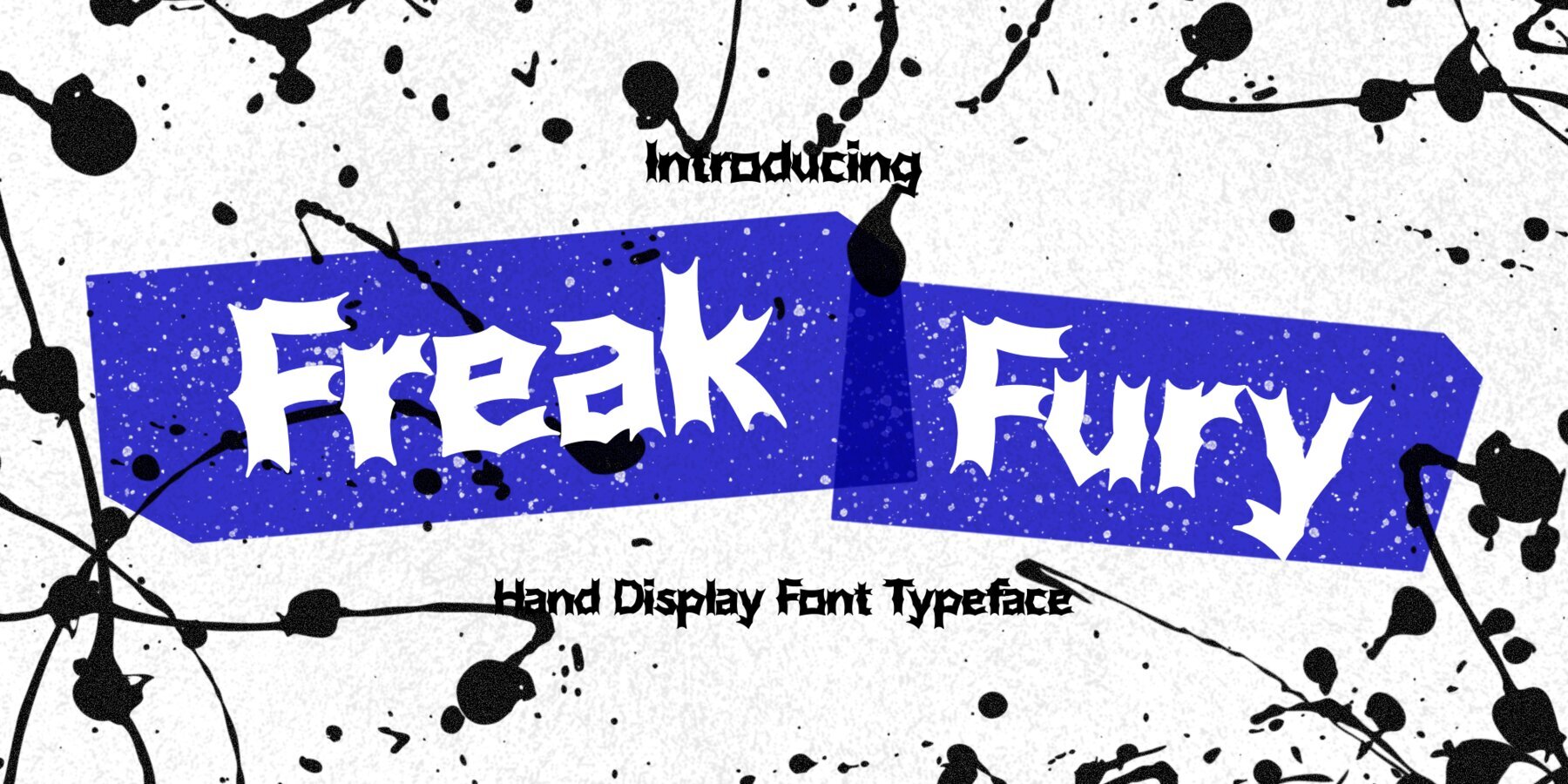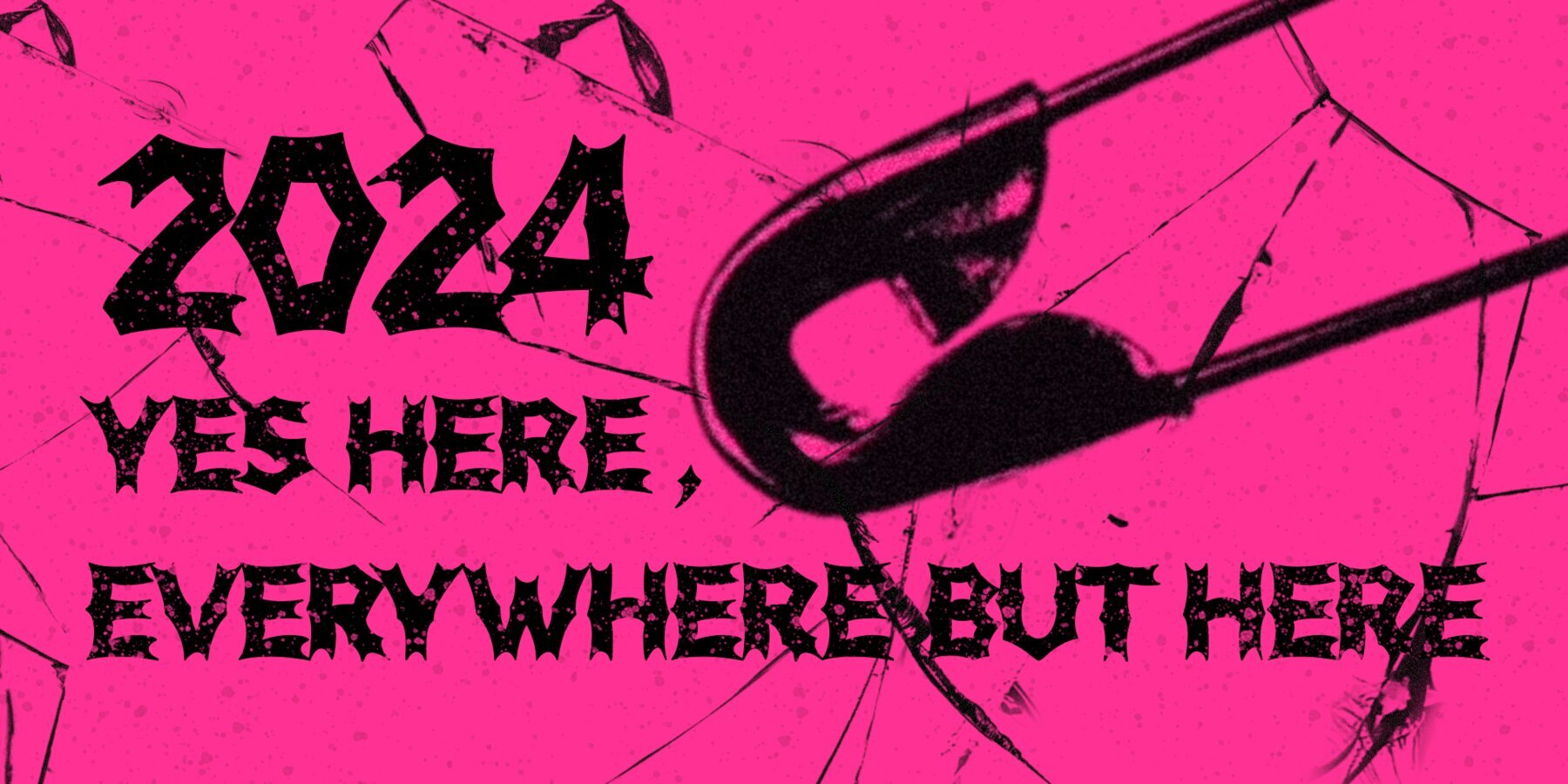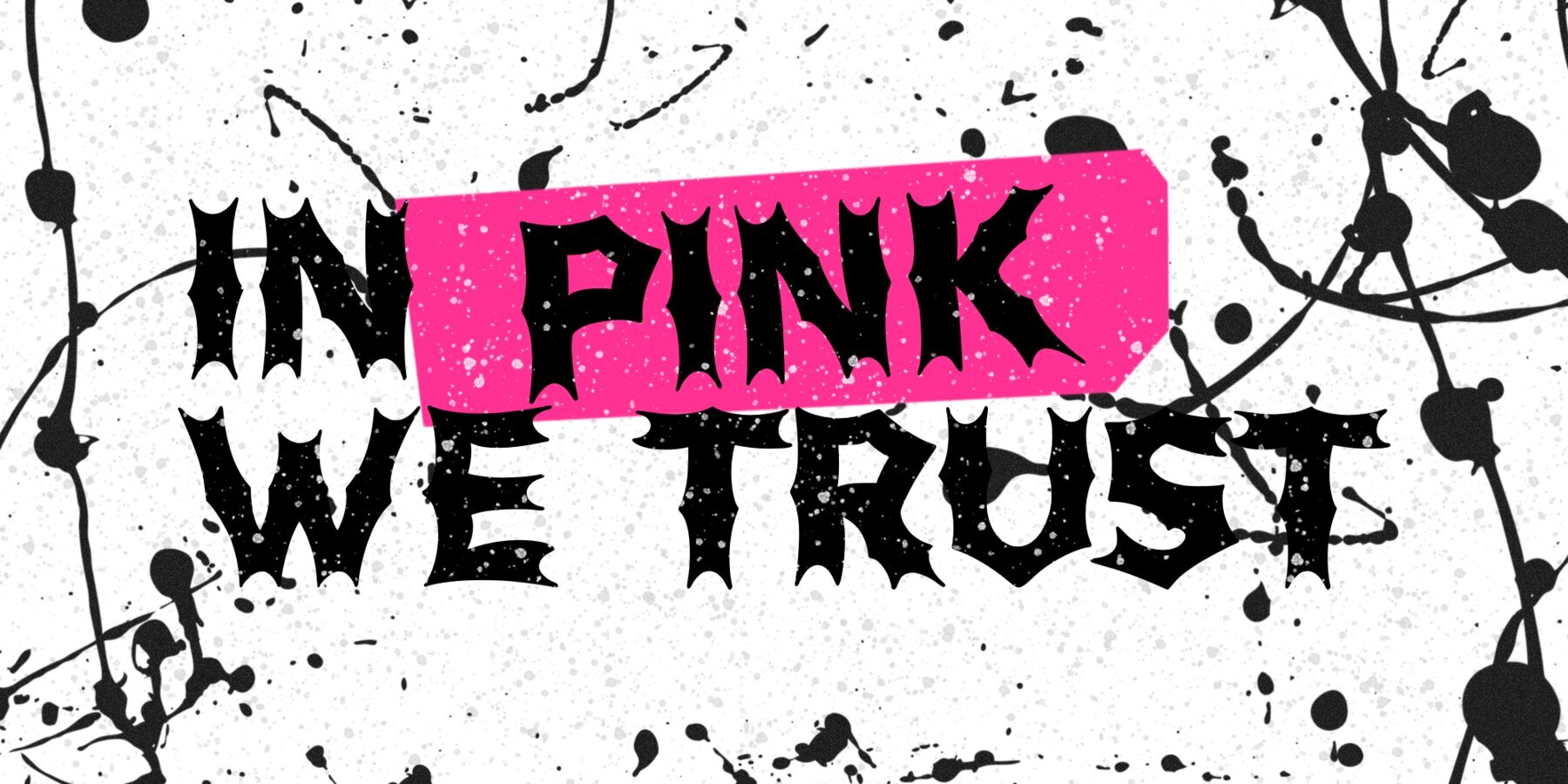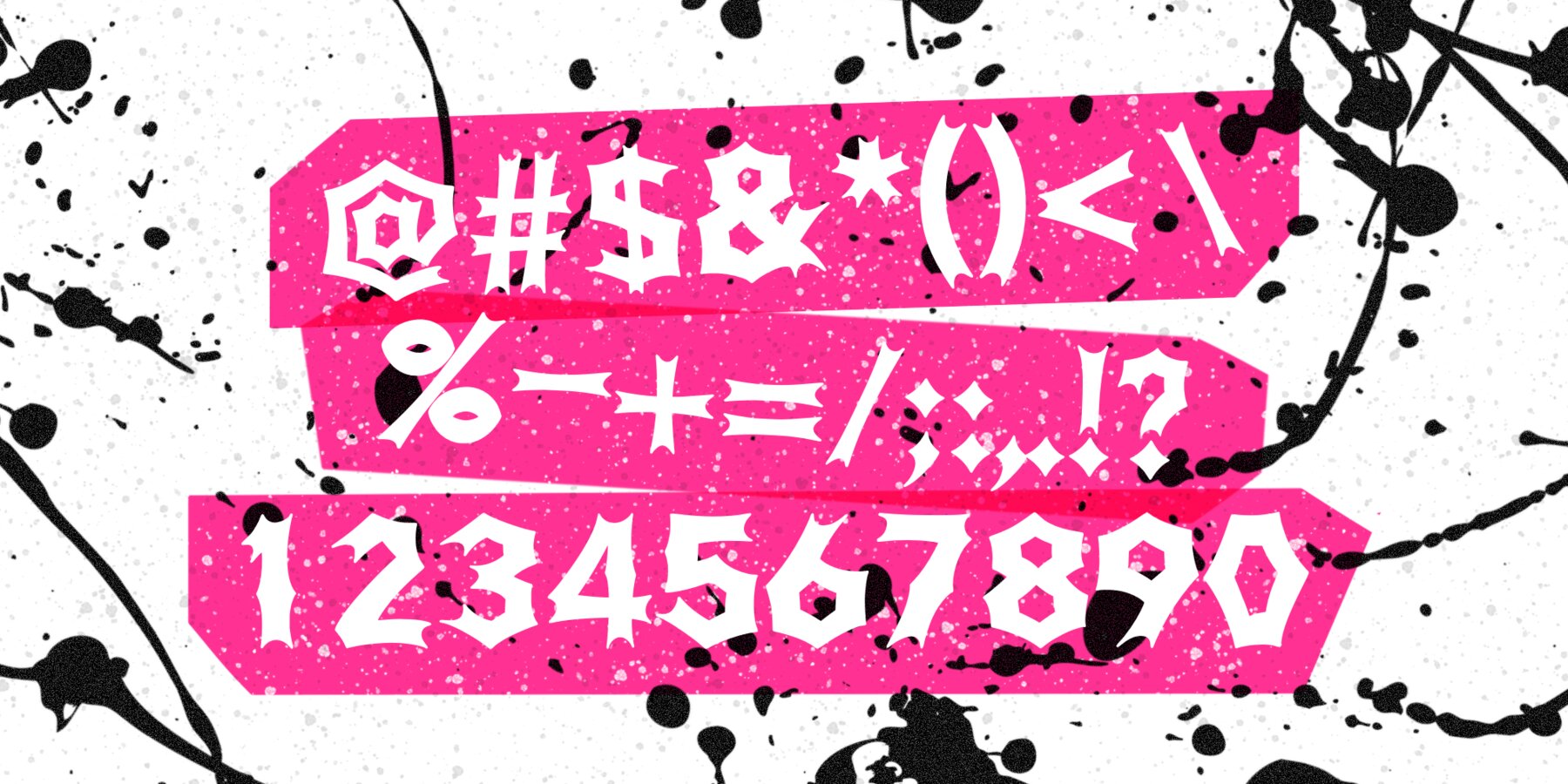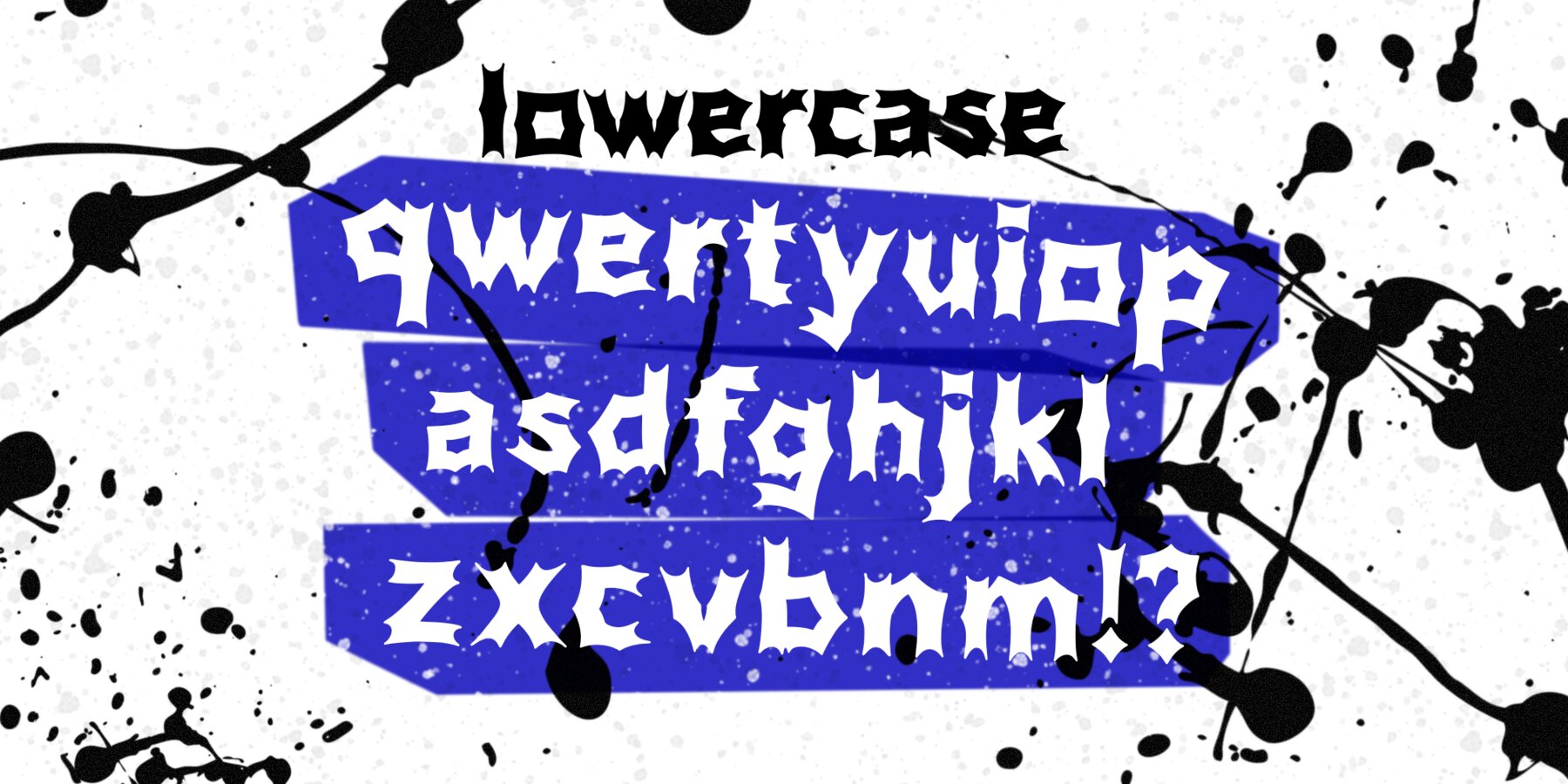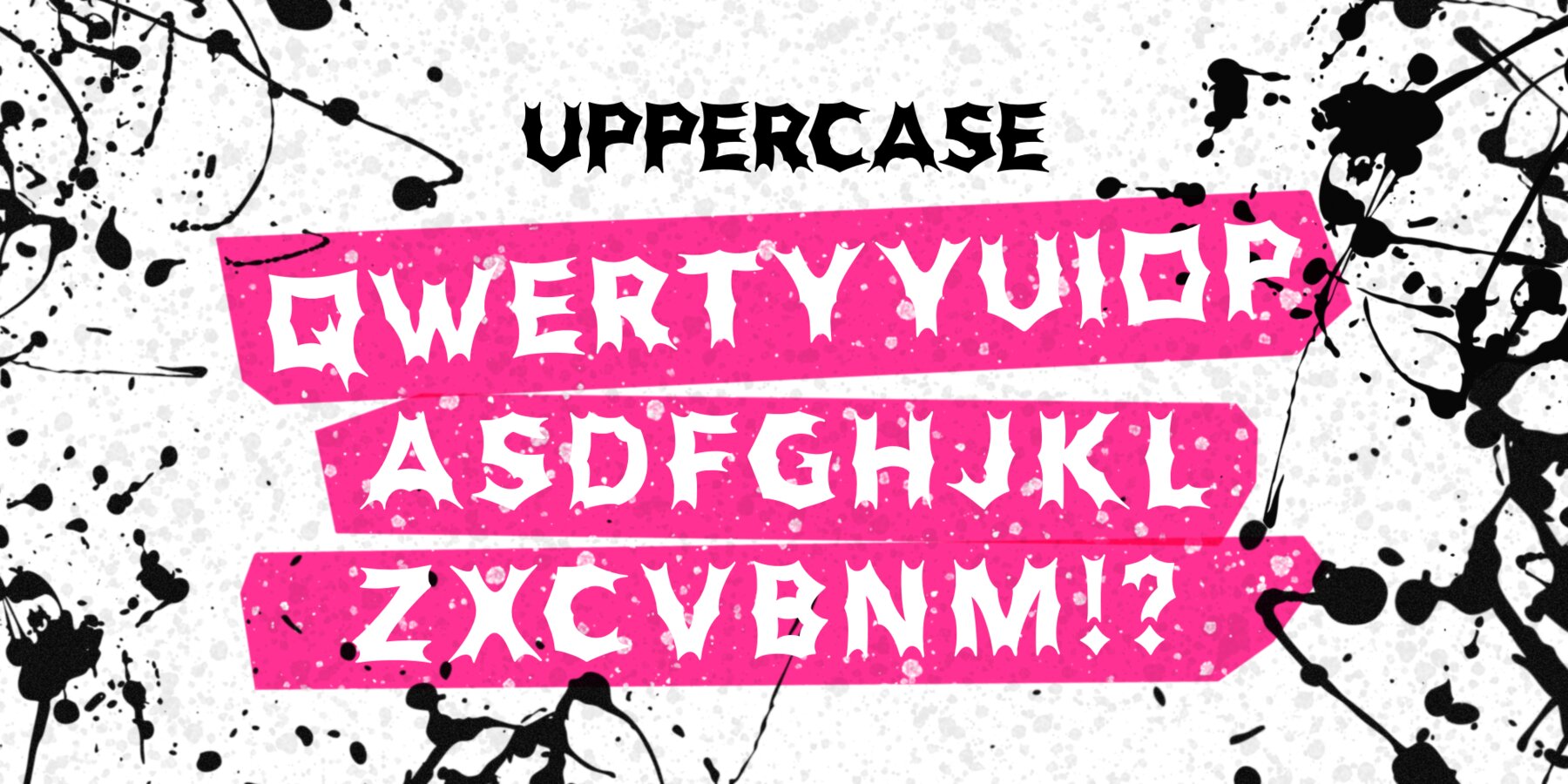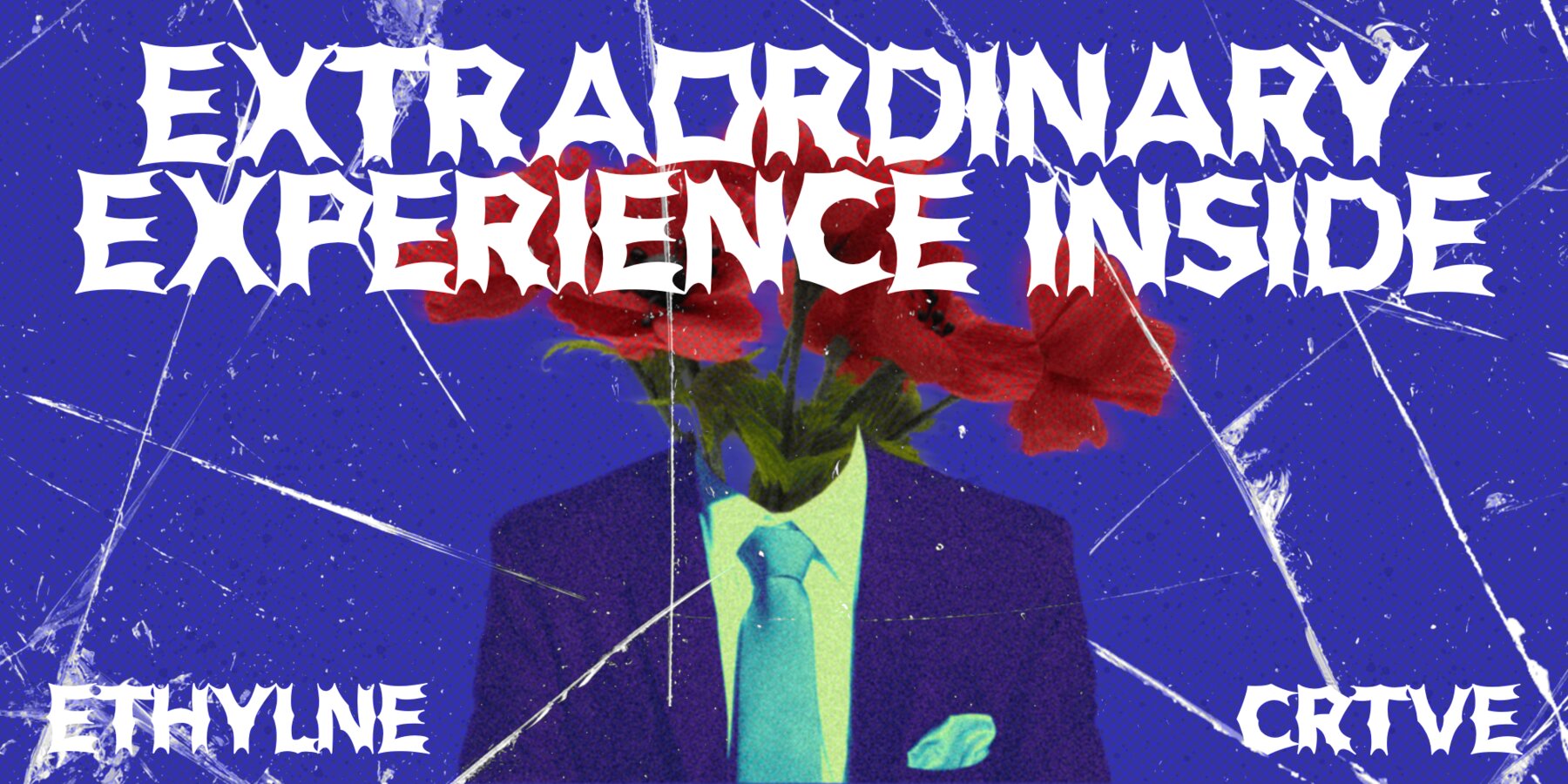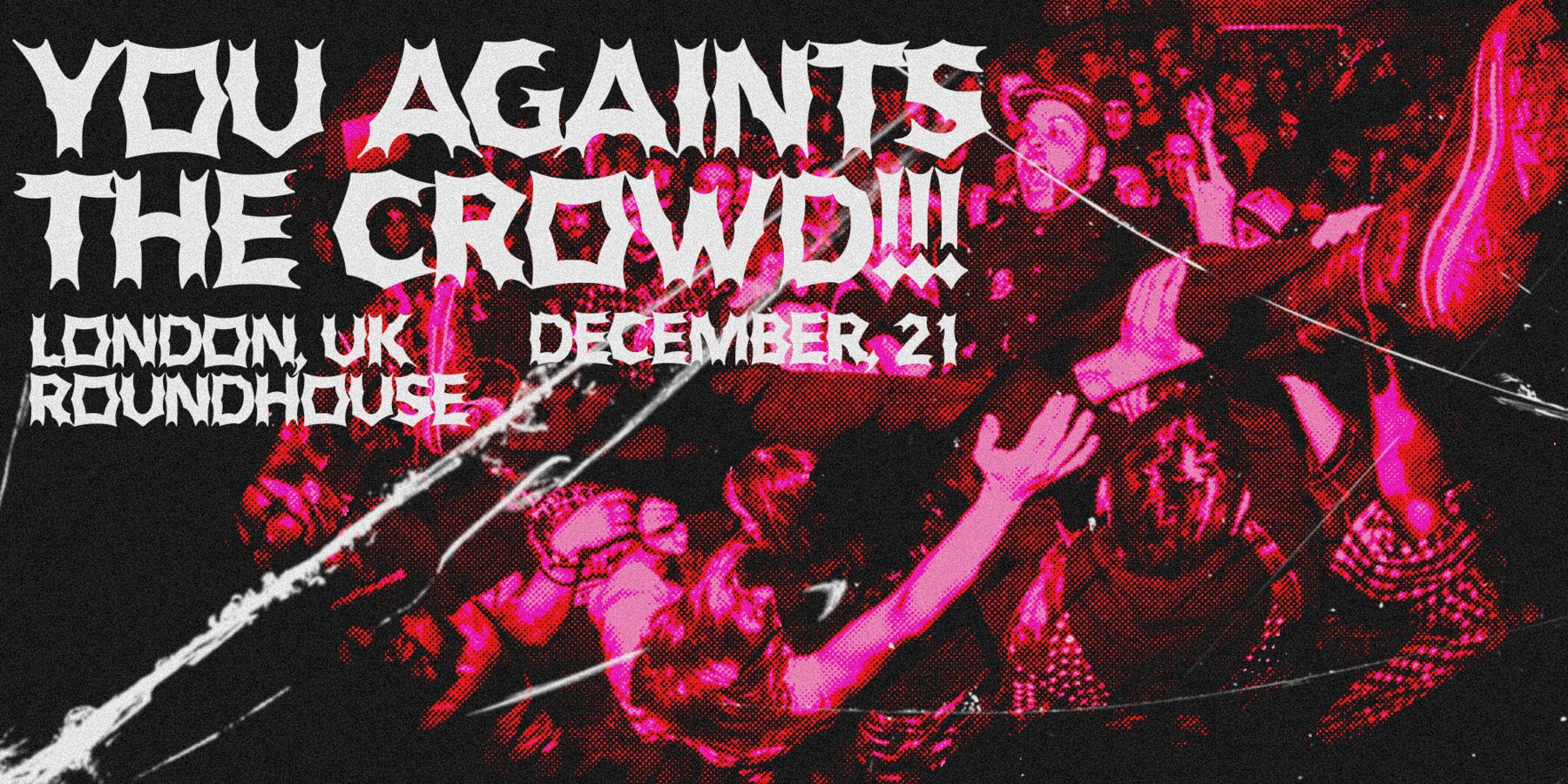
Freak Fury Font
Freak Fury
Freak Fury is a boldly themed typeface that embodies horror, punk, rebellion, and resistance. Perfect for diverse design projects, Freak Fury adds a distinctive edge to posters, book and magazine covers, merchandise, YouTube thumbnails, and social media posts.
This display typeface is crafted to infuse a unique artistic touch into any creative concept, making it an ideal choice for designers seeking to convey a sense of boldness or defiance in their work. With its striking aesthetic, Freak Fury is both versatile and visually compelling, setting the tone for impactful and memorable designs.